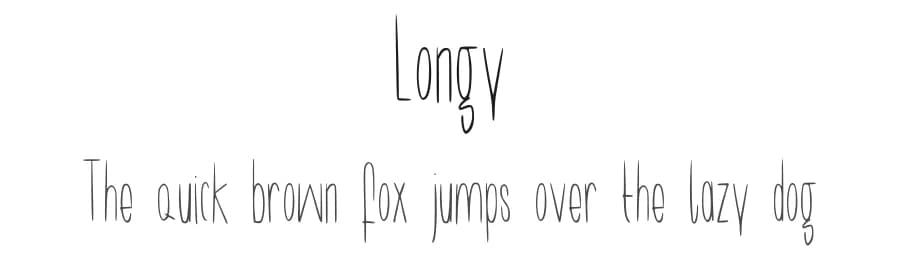
About Longy Font
Longy is a handwritten script typeface designed by mika, offering a flowing, informal aesthetic that captures the natural movement of pen on paper. With 103 glyphs and support for over 104 languages using Latin-based scripts, this Regular-weight font brings personal character and authenticity to a wide range of projects. The script's organic letterforms make it ideal for wedding invitation suites, where its warmth and sincerity add genuine emotion to your stationery design.
This font's relaxed, human quality works beautifully in social media graphics and Instagram captions, helping your brand voice feel more approachable and genuine to your audience. Hand-lettered posters and greeting cards are another natural home for Longy, where the script's expressive curves and natural flow enhance the handcrafted feel and artistic intention. Brand identity projects, from business cards to logo lockups to packaging design, benefit from the typeface's distinctive character without sacrificing readability or impact. Extensive language support ensures your message reaches and resonates with international audiences across different regions, markets, and linguistic backgrounds.
Longy Font is a script font that shines as a display or heading face. Pair it with a clean sans-serif or serif font for body text β the contrast creates a clear hierarchy while the two styles stay balanced and easy to read.
Longy Font
by mika